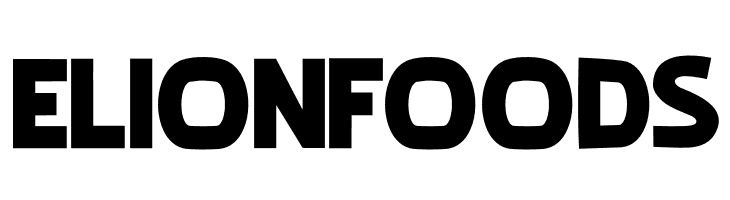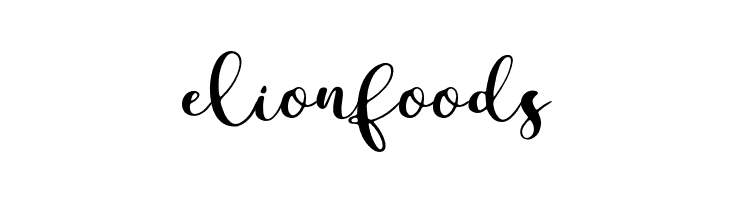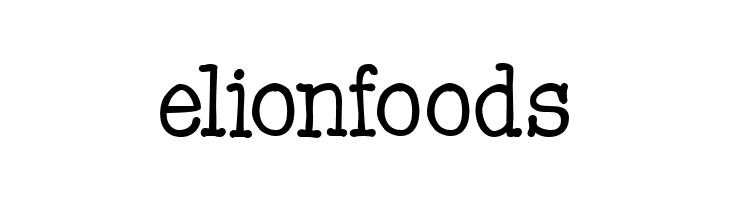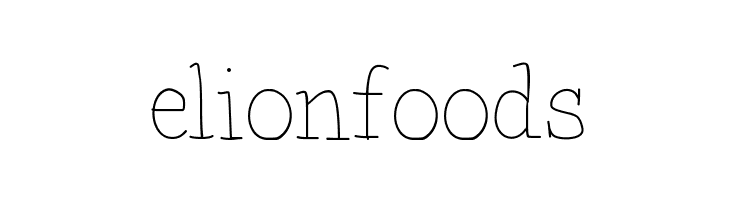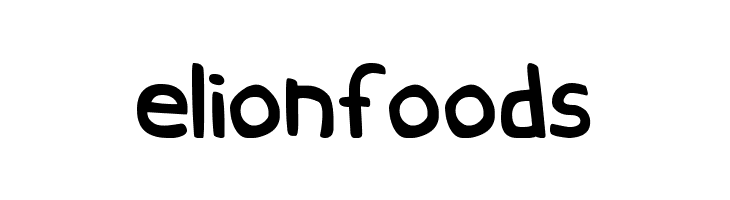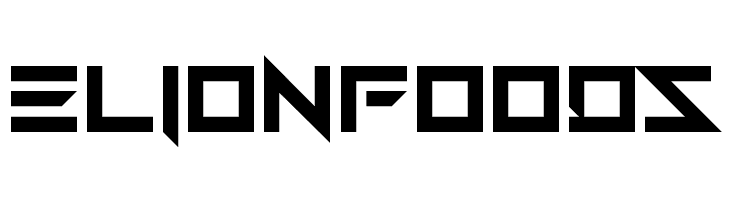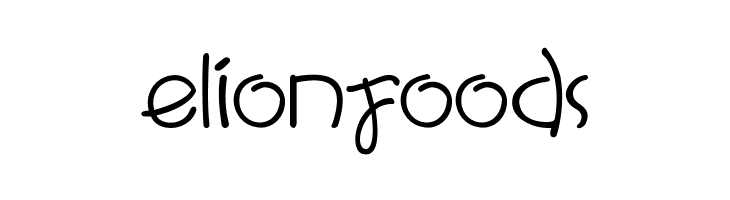
( Alexander Tiunov - creativemarket.com/Besttypeco )
A decorative cursive font with elegant loops and dynamic contrast.
( BessAsher Rebel - Bess Rebel )
A playful, rounded font with a whimsical and slightly irregular design.
( Britt Douglas - galleryeight.blogspot.ca/ )
A refined and elegant font with thin, uniform strokes and generous spacing.
( Chequered Ink - chequered.ink/ )
A playful, rounded font with a hand-drawn, casual style.
( Chequered Ink - chequered.ink/ )
A bold, futuristic font with sharp, angular lines and geometric shapes.
( Daddi Daryawan )
A playful handwritten font with smooth curves and a casual style.
( Daddi Daryawan )
A playful and casual handwritten font with fluid, organic letterforms.
( Daisy - daegeseage Daisy )
A playful, hand-drawn font with a whimsical and casual style.
( Darrell Flood )
A playful, hand-drawn font with rounded characters and a whimsical style.